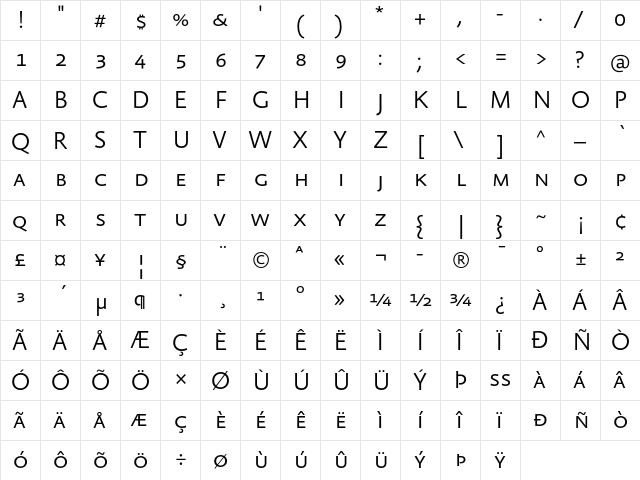
AbsaraSansTF-LightSC Regular
Design Context for AbsaraSansTF-LightSC Typeface
AbsaraSansTF-LightSC offers clean, dependable letterforms without strong stylistic allegiance, making it a practical choice for designers who need flexibility. The delicate stroke weight brings airiness and refinement to layouts.